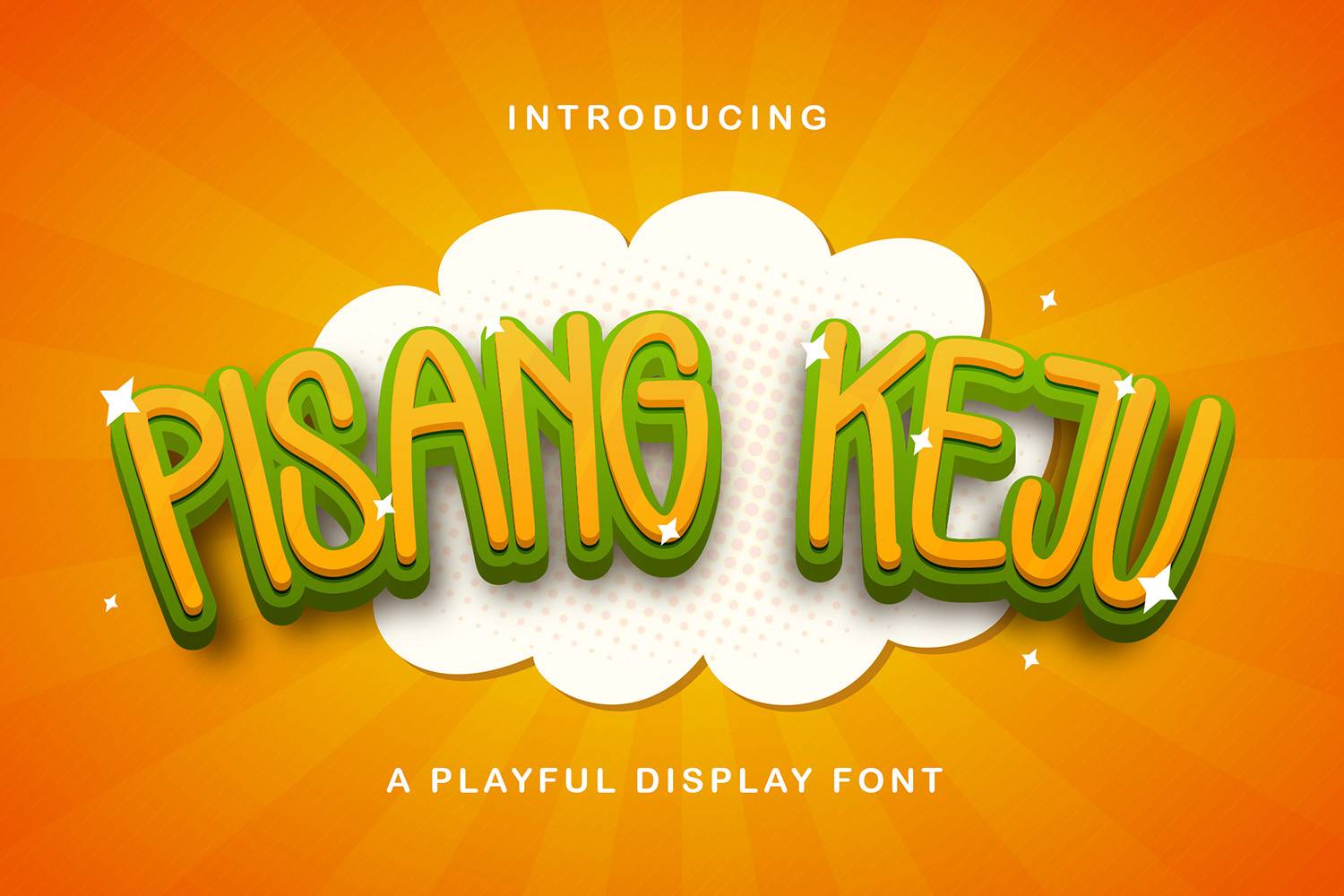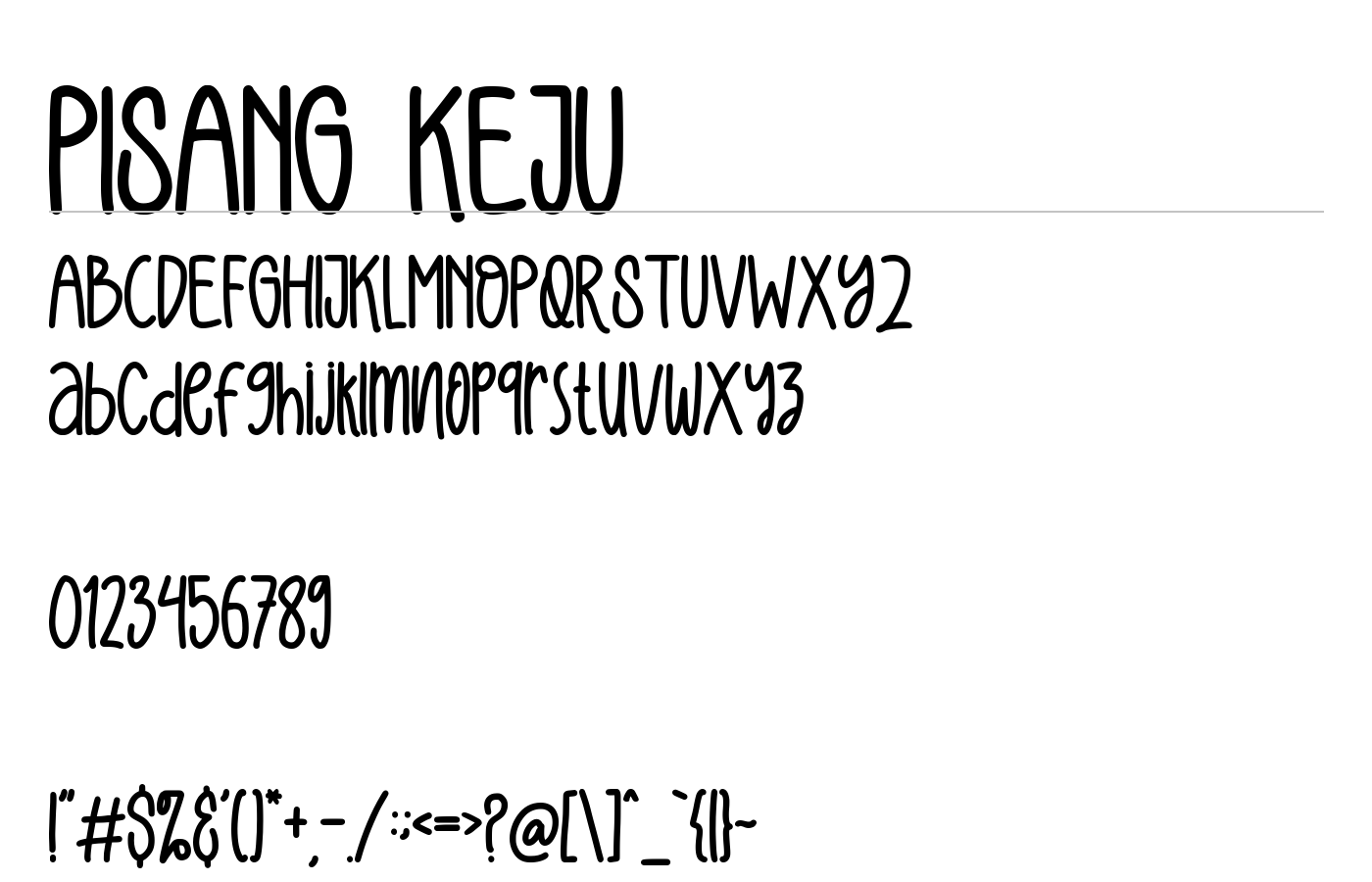
Pisang Keju is a playful, narrow sans serif font with a hand-drawn feel, featuring tall, slightly irregular letterforms that create a casual and friendly vibe. Its light weight and lively curves make it ideal for informal designs like children’s books, fun branding, or creative headlines where a whimsical, approachable style is desired. This font works well in contexts that benefit from a unique, personal touch without sacrificing readability.
Pisang Keju Font
About Pisang Keju Font